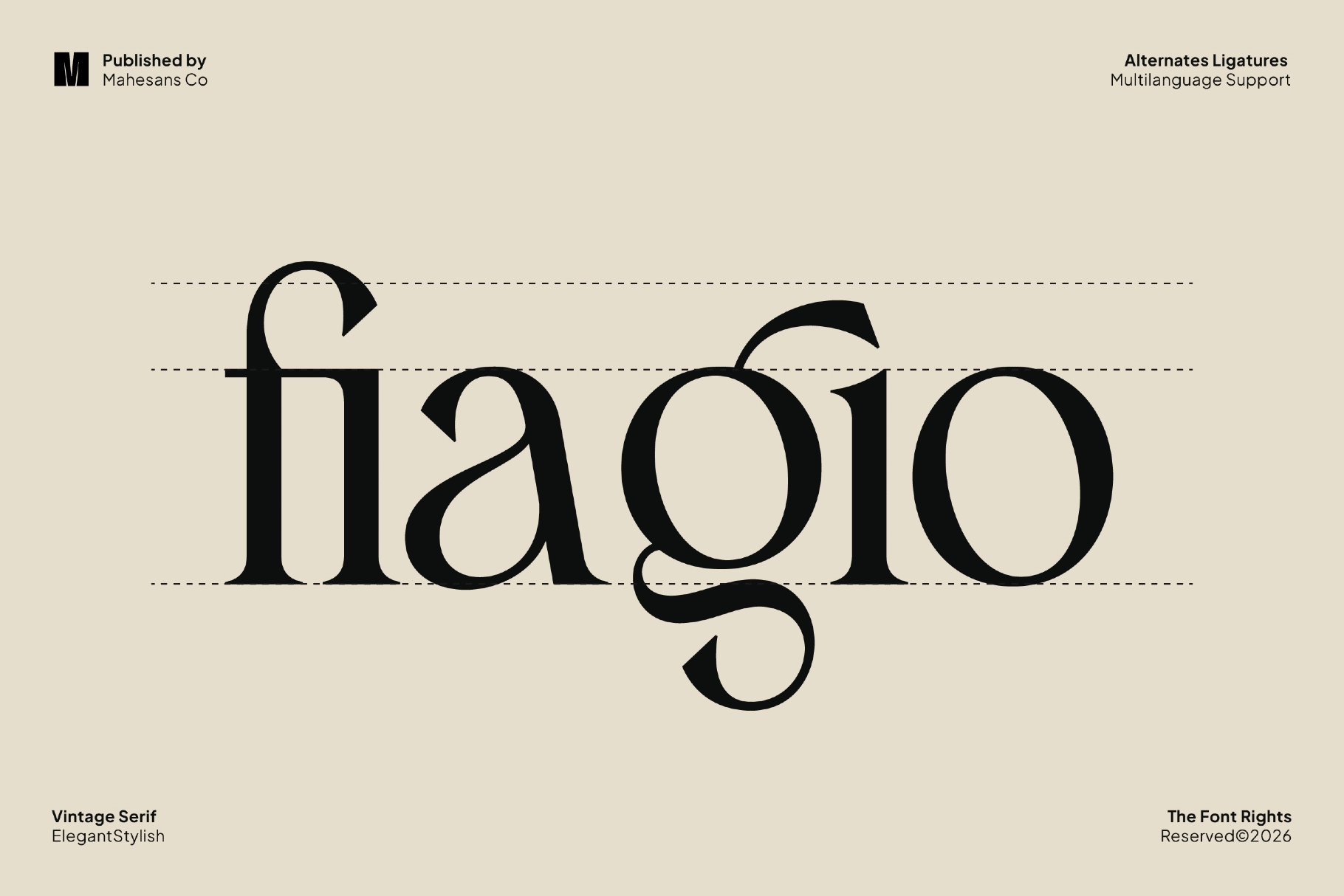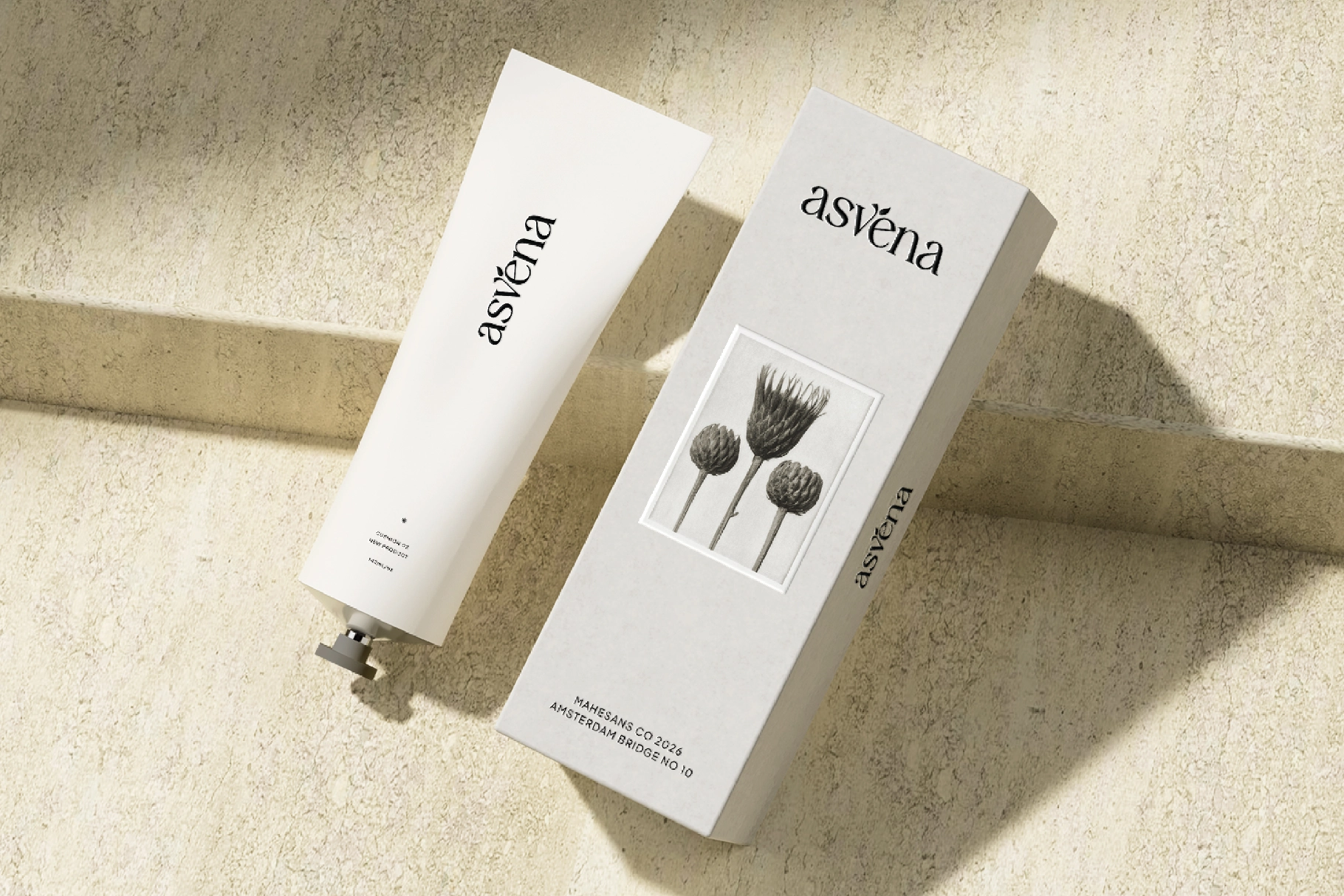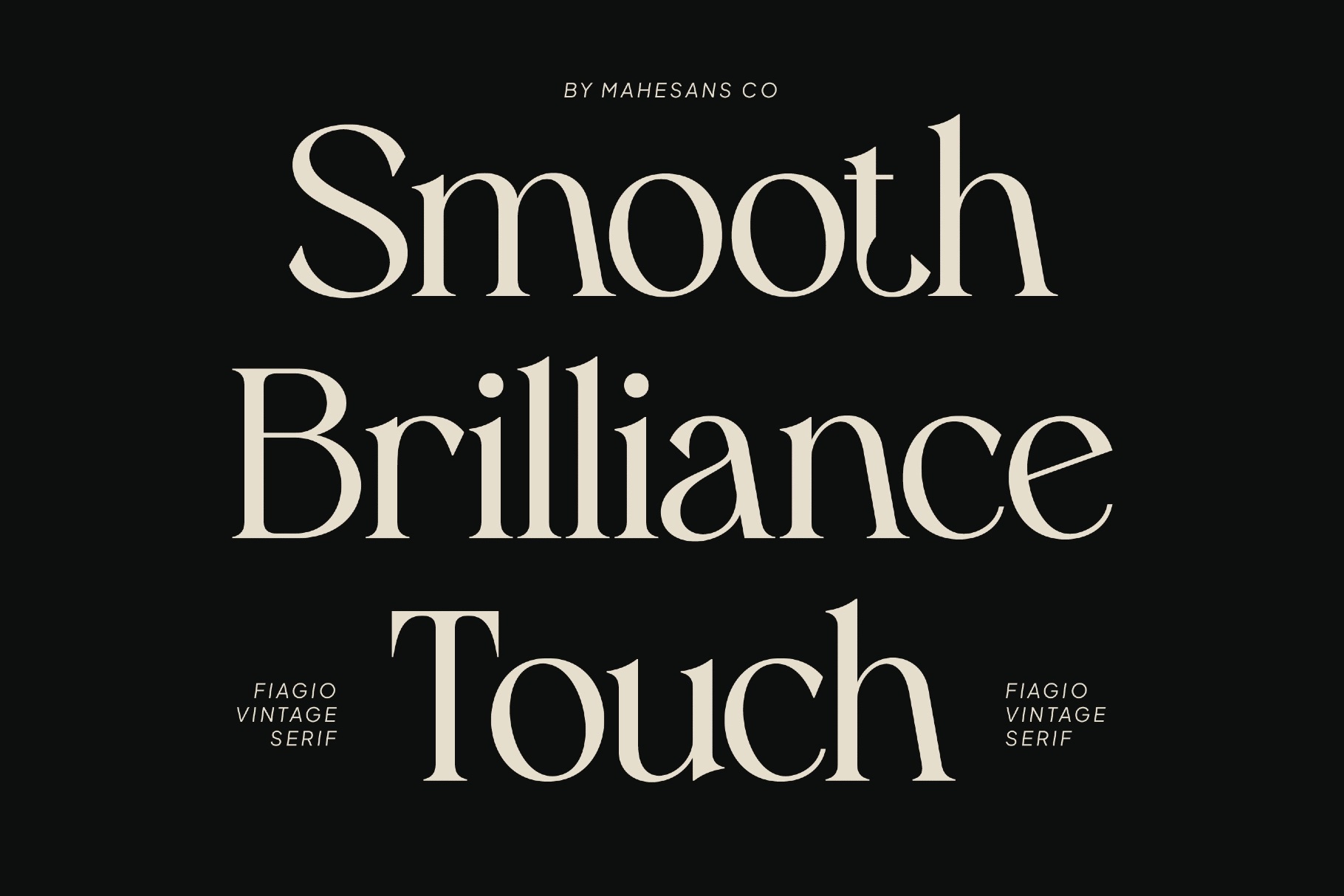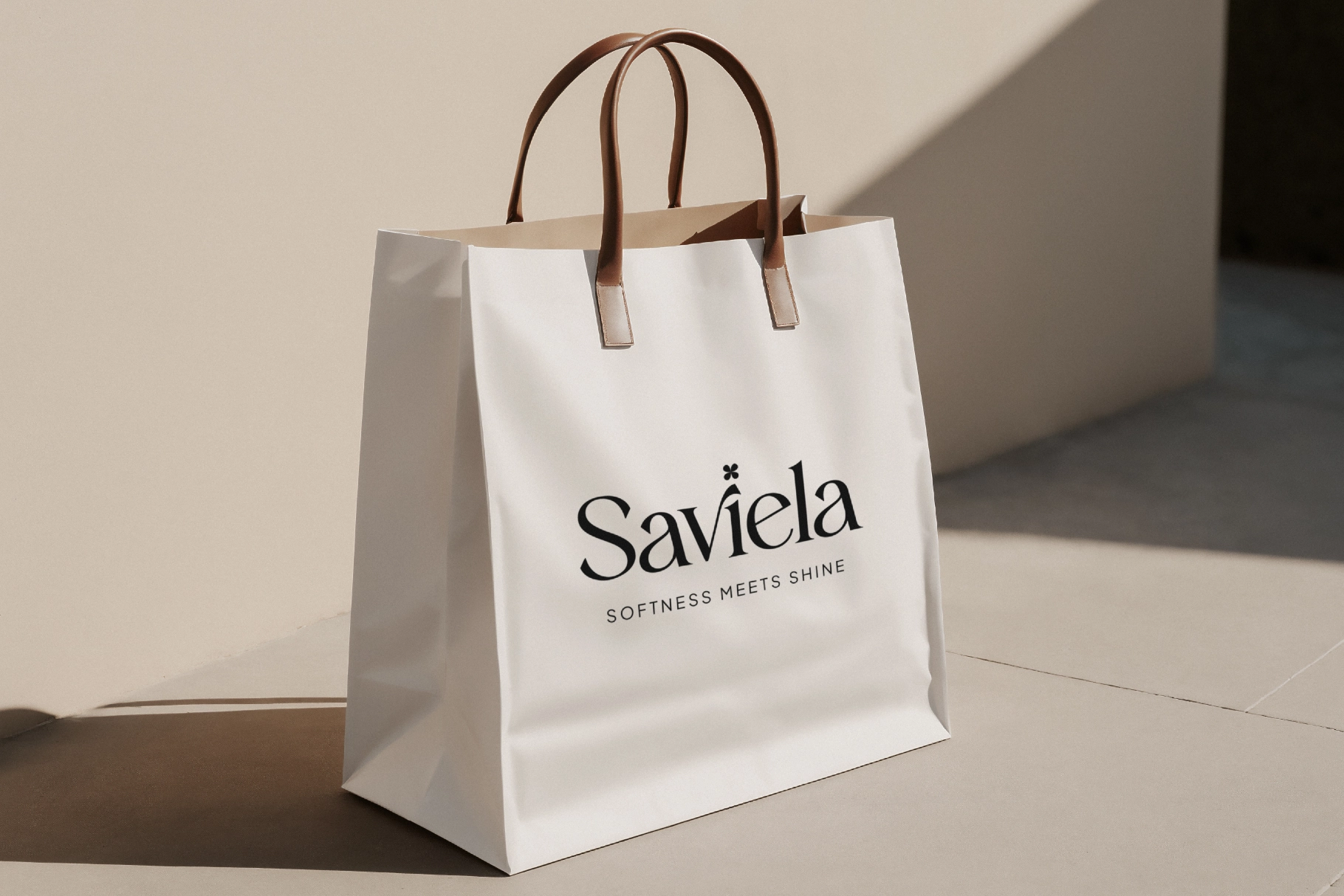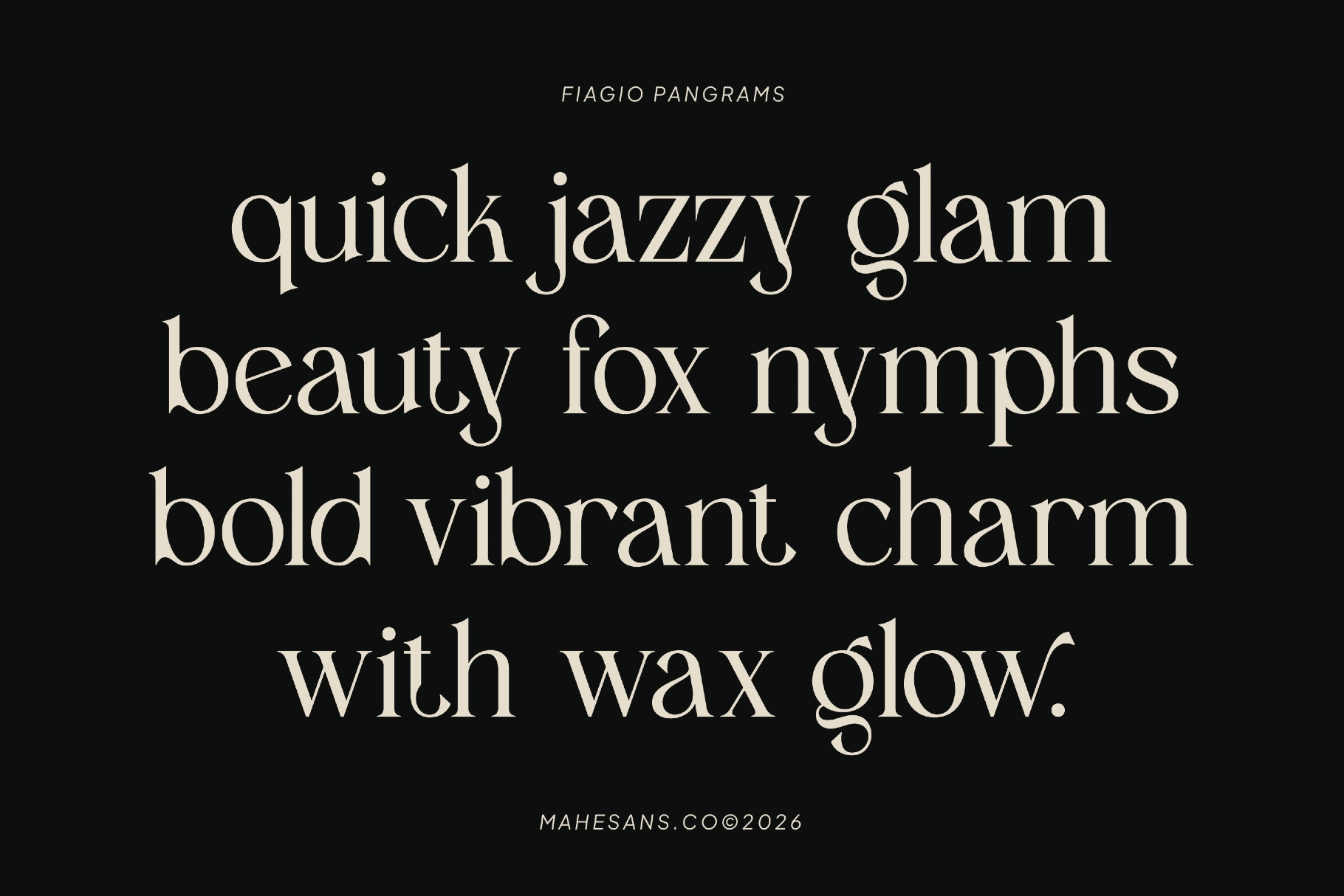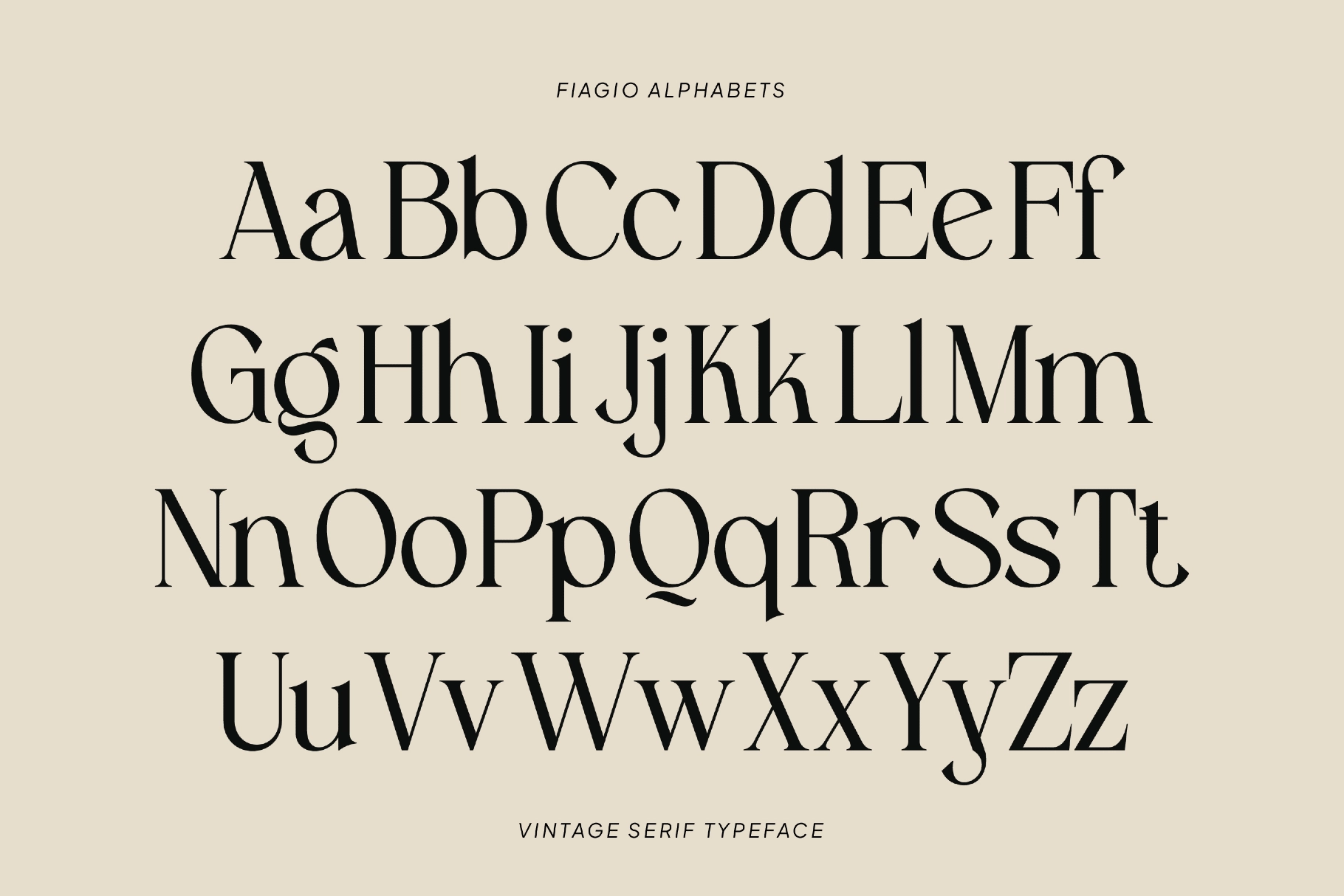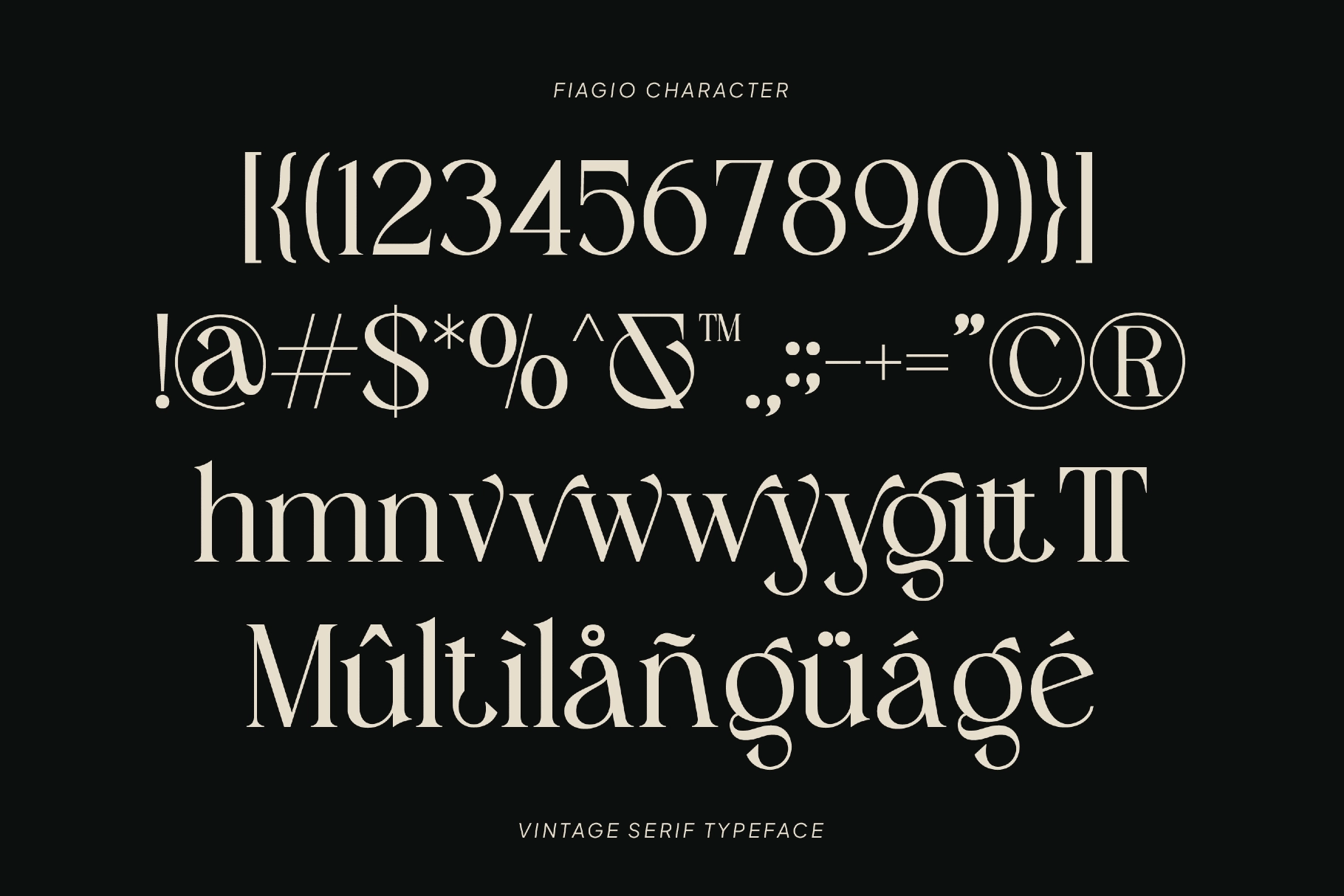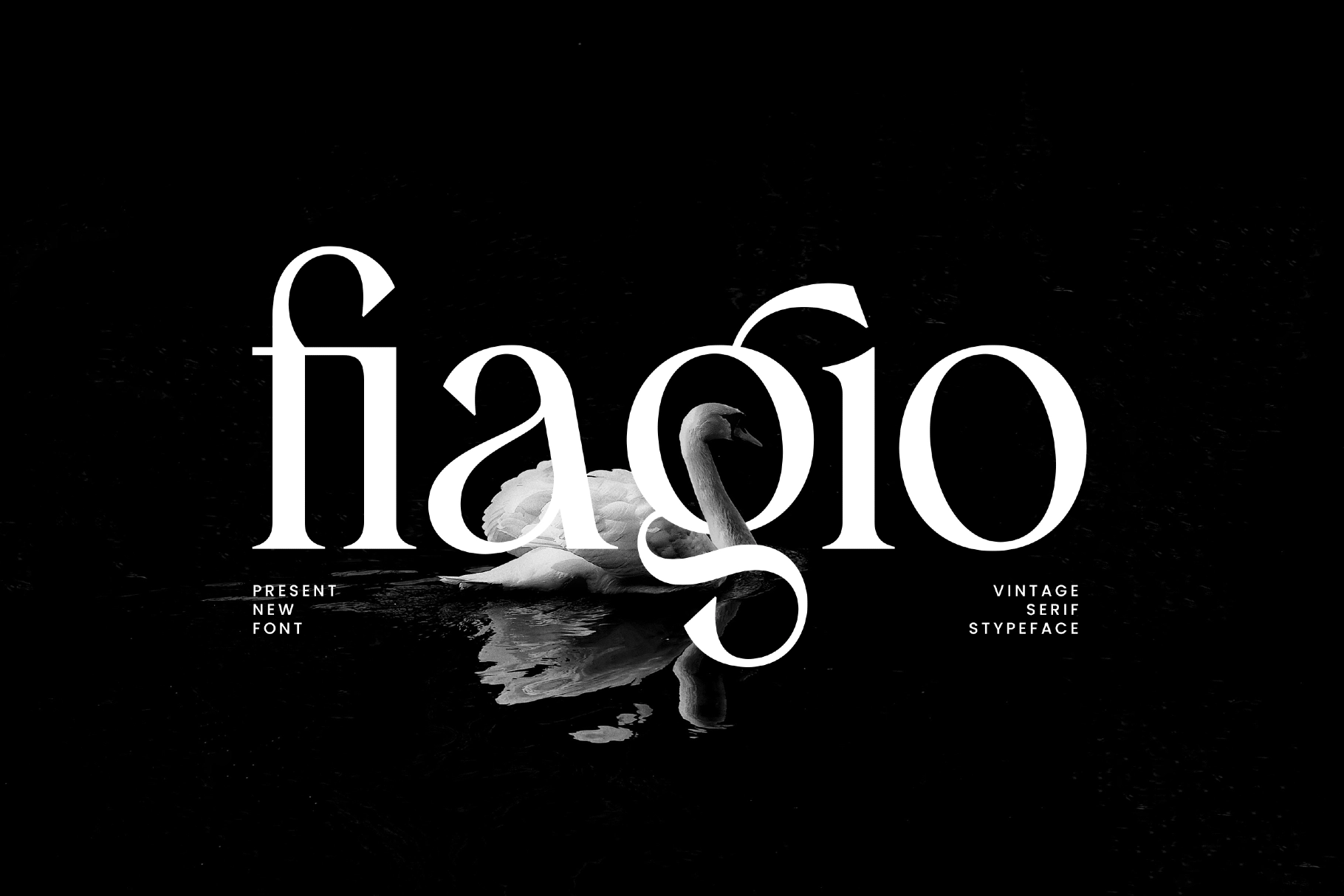
Fiagio – Elegant Vintage Serif Font
Fiagio draws from the high-contrast serif tradition of late-19th century fashion type — thin horizontal strokes against heavy verticals, ball terminals on the ascenders, a double-bowl g with a calligraphic tail. Alternates for h, m, n, v, w, and y add expressive swash flourishes that give a wordmark personality without tipping into illegibility. As an elegant vintage serif font it sits precisely between editorial authority and boutique warmth.
Fiagio works best in short, high-impact settings where the contrast and alternates have room to read: campaign headlines, logotypes, book and magazine covers, packaging titles, and social content that needs a polished, curated presence. Use it for fashion and beauty branding, luxury product labels, editorial layouts, stationery, and any project where a refined typographic voice is the point.
• Uppercase & lowercase;
• Numerals, punctuation & symbols;
• Ligatures;
• Discretionary ligatures;
• Stylistic alternates;
• Multilingual support;
• 227 glyphs